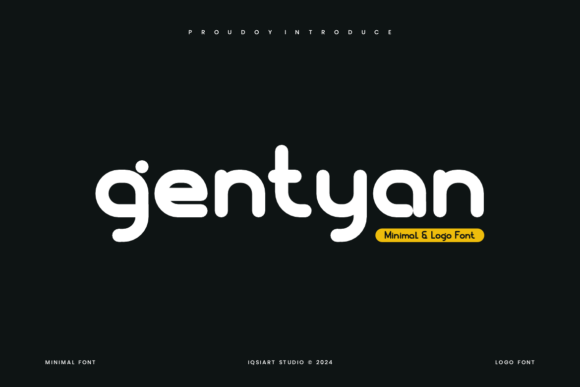
Gentyan Font: The Epitome of Modern Typography
In the realm of typography, fonts play a pivotal role in shaping the visual identity of a brand, product, or service. Among the myriad of fonts available, Gentyan has emerged as a beacon of modernity and simplicity. This clean and modern font, with its minimalist style, has been making waves in the design community for its exceptional readability and versatility. In this article, we’ll delve into the world of Gentyan font, exploring its characteristics, uses, and the impact it can have on your design projects.
Characteristics of Gentyan Font
Gentyan is distinguished by its simple lines and clear shapes, making it an epitome of minimalist design. This font family is crafted to provide an uncluttered and straightforward visual experience, which is essential for creating sleek, contemporary logos, headings, and body text. The clean lines of Gentyan ensure that it remains legible across various mediums, from digital screens to print materials.
- Clean and Modern Design: Gentyan’s design is centered around simplicity. It eschews unnecessary flourishes, focusing on clear and concise letterforms that convey a sense of modernity.
- Minimalist Style: The minimalist approach of Gentyan makes it incredibly versatile. It can be seamlessly integrated into a wide range of design projects, from corporate branding to digital applications.
- High Readability: One of the standout features of Gentyan is its exceptional readability. The clear shapes and balanced spacing ensure that text flows smoothly, making it easy on the eyes.
The Versatility of Gentyan Font
The simplicity and modernity of Gentyan make it an excellent choice for various applications. Whether you’re working on a logo, heading, or body text, Gentyan can elevate your design with its clean aesthetic.
- Logo Design: For brands aiming to project a modern and sophisticated image, Gentyan can be a perfect fit. Its clean lines and minimalist style can help create a memorable and impactful logo.
- Digital Applications: In the digital realm, Gentyan shines with its ability to remain legible on various screen sizes and resolutions. It’s ideal for websites, mobile apps, and digital marketing materials.
- Print Materials: Gentyan’s versatility extends to print materials as well. It can be effectively used in brochures, posters, and business cards to give your brand a cohesive and contemporary look.
The Impact of Gentyan on Design
The choice of font can significantly influence the perception of a brand or design. Gentyan, with its modern and clean aesthetic, can contribute to a positive and professional image.
- Professionalism: The clean and minimalist design of Gentyan conveys a sense of professionalism. It’s perfect for businesses and individuals looking to project a sleek and contemporary image.
- Approachability: Despite its modernity, Gentyan maintains a friendly and approachable feel. This balance makes it suitable for a wide range of audiences and applications.
- Versatility: Perhaps one of the most significant impacts of Gentyan is its versatility. It can be used across different mediums and design projects, providing a consistent visual identity.
In conclusion, Gentyan font stands out as a beacon of modern typography. Its clean and minimalist design, combined with high readability, makes it an excellent choice for designers and brands aiming to create a contemporary visual identity. Whether it’s for a logo, digital application, or print material, Gentyan offers a versatile and professional solution. By incorporating Gentyan into your design projects, you can ensure a sleek, modern look that resonates with your audience.
- What makes Gentyan font unique?
- Gentyan’s unique selling point is its clean and modern design, coupled with its minimalist style and high readability.
- Can Gentyan be used for both digital and print materials?
- Yes, Gentyan’s versatility makes it suitable for a wide range of applications, including both digital and print materials.
- Is Gentyan suitable for logo design?
- Absolutely. Gentyan’s clean lines and modern aesthetic make it an excellent choice for creating sleek and contemporary logos.